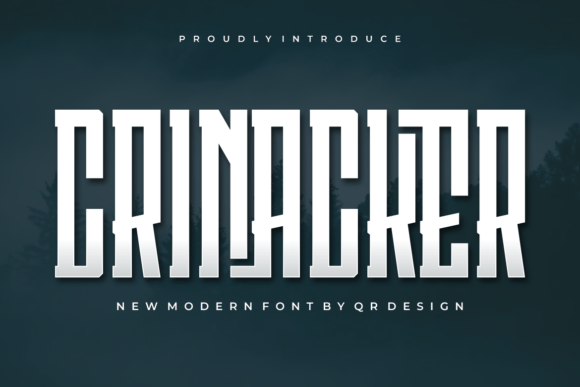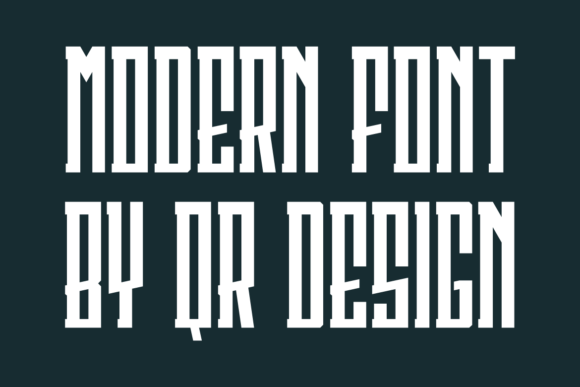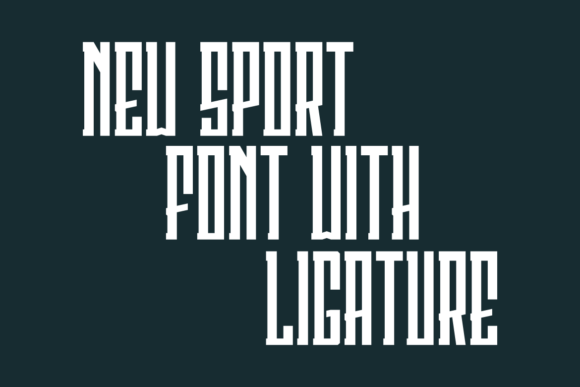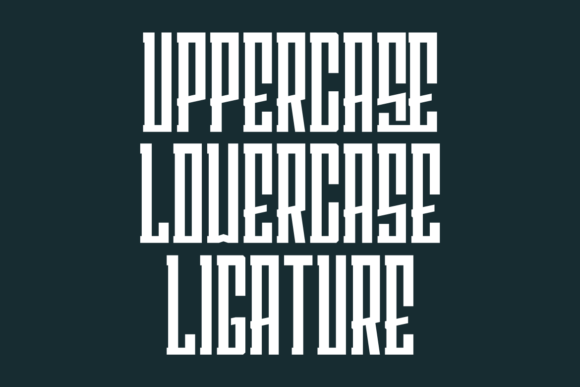
Crinacker Font: A Bold Display Font for Modern Logo Design
About the Crinacker Font
Welcome to the world of Crinacker Font, a typeface that will inspire your next great project. Crinacker Font is a bold and authentic display font. The font is suitable for any branding project like logo, t-shirt printing, sport, and many more. Outstanding in a wide range of contexts.
Crinacker’s bold strokes make it ideal for headlines, posters, and short impactful branding elements. Its strong personality shines in logo design, especially for brands projecting confidence and a slightly rebellious spirit. However, its weight and condensed forms make it less suitable for body text or UI elements requiring high readability.
For a balanced design, pair Crinacker with a clean sans-serif like Open Sans for body copy, or a more delicate script font such as Great Vibes for a touch of elegance in supporting text. Consider pairing it with a geometric sans-serif, like Futura, for a modern and sophisticated look.
Crinacker’s overall personality is bold and assertive, yet retains a raw, authentic feel. It works best for brands that want to convey strength, individuality, and a touch of unconventionality.
Crinacker Font Example